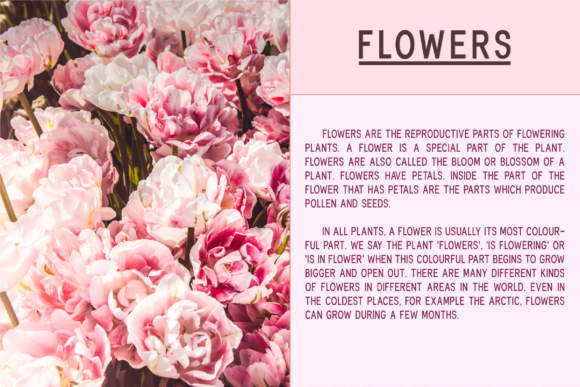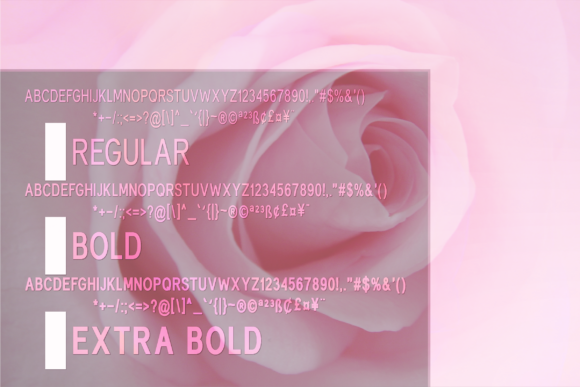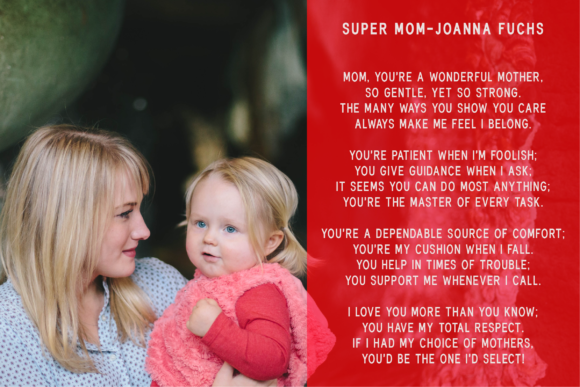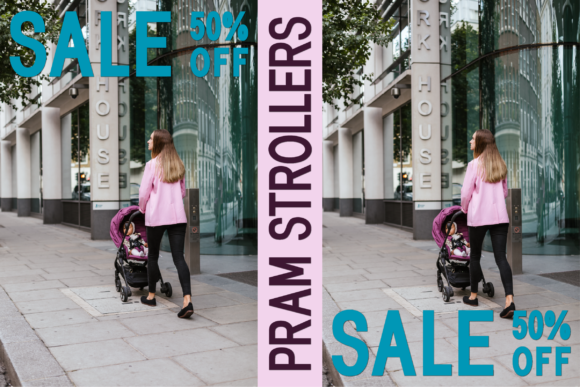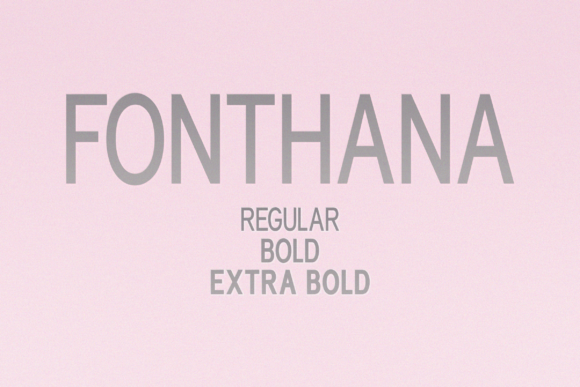
Fonthana Font: Elevate Your Crafting Projects with Elegance
In the world of crafting and design, the right font can make all the difference. A beautiful font can elevate your project from ordinary to extraordinary, capturing the attention of your audience and conveying your message with style. Introducing Fonthana Font, an elegant sans serif font that is sure to become your go-to choice for any crafting project that requires a stunning appearance.
Aesthetic Versatility: Three Unique Styles
Fonthana Font is not just any font; it’s a versatile collection of three different styles that cater to a wide range of design needs. Whether you’re working on a modern digital project, a traditional crafting endeavor, or anything in between, Fonthana has got you covered. The three styles ensure that you can maintain consistency across your project while offering the flexibility to choose the look that best suits each element of your design.
Elegance Redefined: Sans Serif Sophistication
Sans serif fonts are popular for their clean and modern look, making them perfect for projects that demand clarity and sophistication. Fonthana Font takes this a step further with its elegant design that exudes refinement and poise. The clean lines and smooth curves of Fonthana make it highly readable, whether it’s used for headings, body text, or decorative elements in your crafting projects.
Crafting Possibilities: Where to Use Fonthana Font
The versatility of Fonthana Font makes it suitable for a myriad of crafting projects. Here are some ideas to get you started:
- Digital Art and Graphics: Use Fonthana to add a touch of elegance to your digital artworks, social media graphics, and website headers.
- Paper Crafting: From greeting cards to scrapbooking, Fonthana’s elegant style will add a sophisticated touch to your paper crafting projects.
- DIY Projects: Whether you’re making signs, banners, or decorative items, Fonthana Font can help you achieve a professional and stylish look.
- Branding and Marketing Materials: For crafters who sell their work or services, Fonthana can be used to create consistent and attractive branding across all marketing materials.
Why Choose Fonthana Font?
With so many fonts available, why should Fonthana be your top choice? Here are a few compelling reasons:
- Unique Styles: The three different styles give you the flexibility to experiment with various looks without needing multiple fonts.
- Ease of Use: Fonthana Font is designed to be user-friendly, making it easy to incorporate into your projects, regardless of your design experience.
- High Readability: The elegant sans serif design ensures that your text is easy to read, making it perfect for both headings and body text.
- Professional Look: Fonthana can help you achieve a professional and polished look in your crafting projects, setting you apart from the crowd.
Getting Started with Fonthana Font
- Experiment with Styles: Try out the three different styles of Fonthana to see which one works best for your project.
- Pair with Other Fonts: Don’t be afraid to pair Fonthana with other fonts for contrast and visual interest.
- Adjust Size and Color: Play around with the size and color of Fonthana to match your project’s aesthetic.
Fonthana Font is more than just a font; it’s a design solution for crafters and designers looking to add an elegant touch to their projects. With its three unique styles, elegant sans serif design, and high readability, Fonthana is the perfect choice for a wide range of crafting endeavors. Whether you’re a seasoned designer or a DIY enthusiast, Fonthana Font can help you achieve a stunning appearance that’s sure to impress. So why wait? Download Fonthana Font today and elevate your crafting projects to new heights of elegance and sophistication.